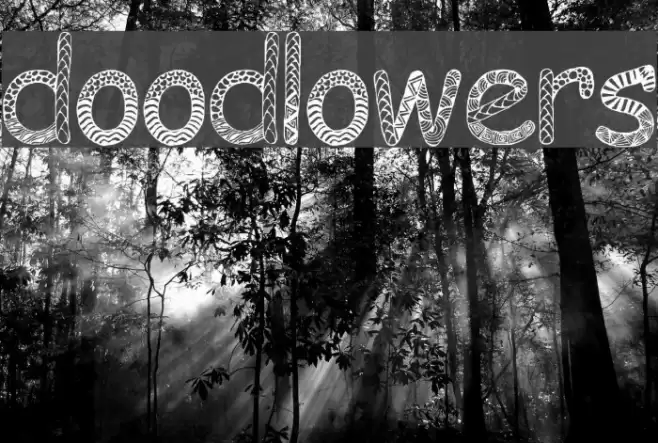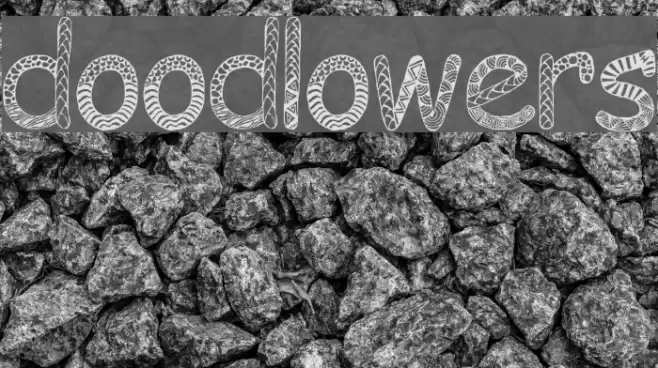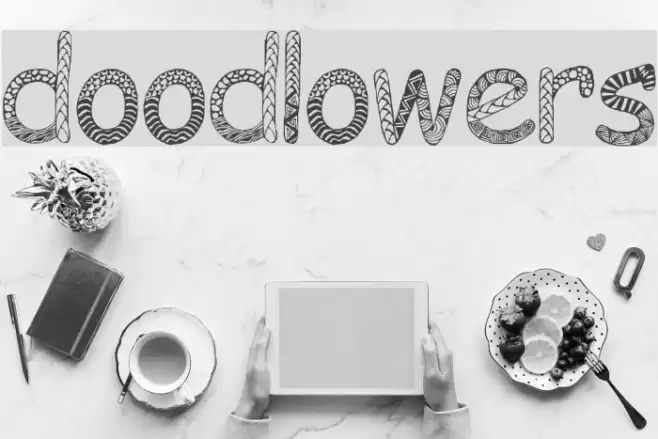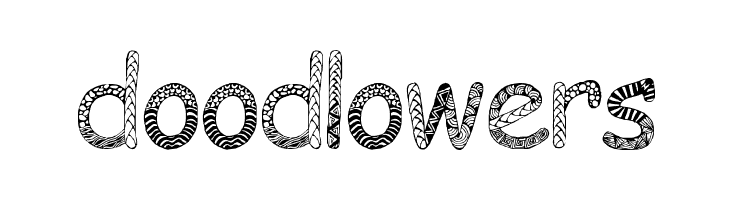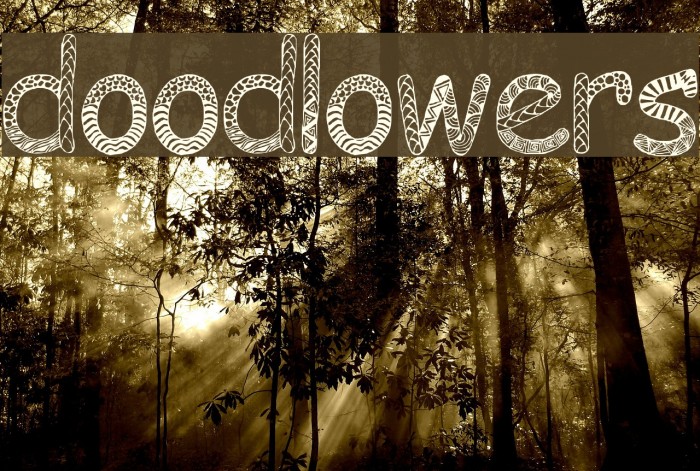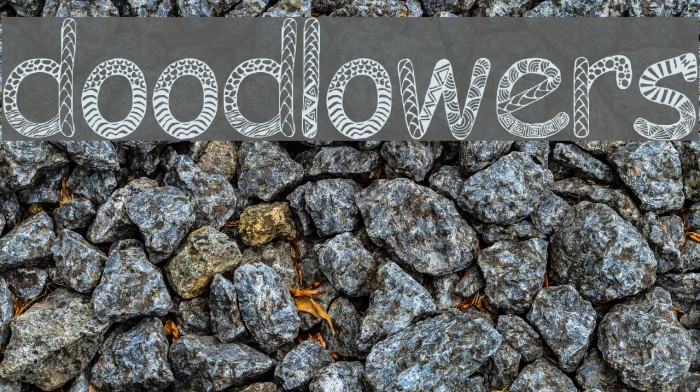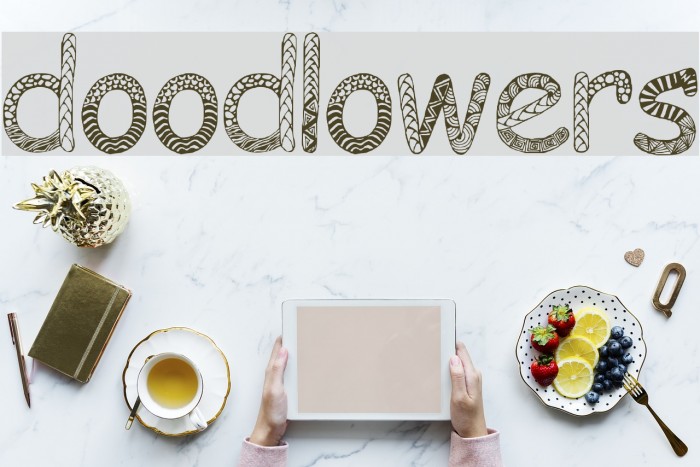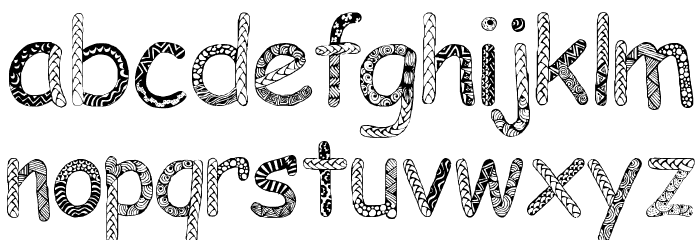
Doodlowers Font
Doodlowers Description
This playful and artistic font features a whimsical design with each letter adorned with unique doodle patterns. The characters are lowercase, with a hand-drawn appearance that gives them a lively and dynamic feel. The intricate patterns within each letter vary, adding a sense of creativity and spontaneity. This font is perfect for projects that require a fun and informal touch, such as children's books, creative posters, or playful branding. The overall style is decorative and eye-catching, making it ideal for capturing attention and conveying a sense of joy and creativity.
A whimsical, doodle-patterned decorative font perfect for playful designs.
- Proposed Projects: Children's books, creative posters, playful branding, art projects.